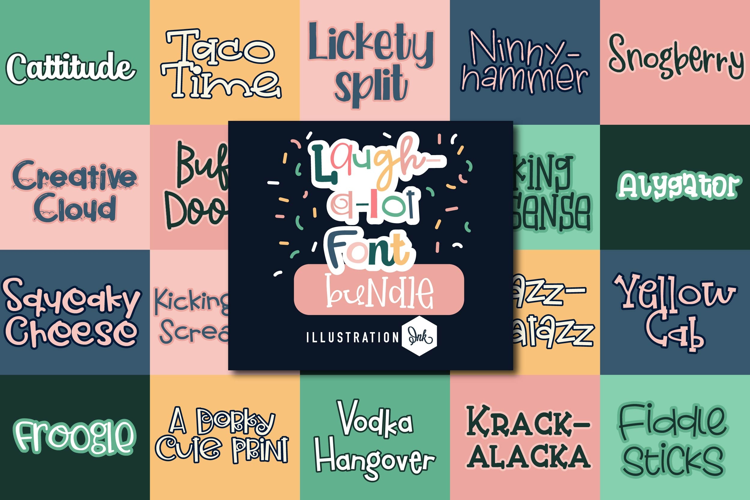
Laugh a Lot Font Bundle
This hand-crafted font bundle contains 20 font families of cute, whimsical fonts! Zip file contains both the .otf and .ttf fonts!
• The letters are not perfectly uniform in size or shape.
• There may be slight variations in the spacing between letters and words.
• The font may have a "wiggly" or "squiggly" appearance.
• The font may be difficult to read at small sizes.